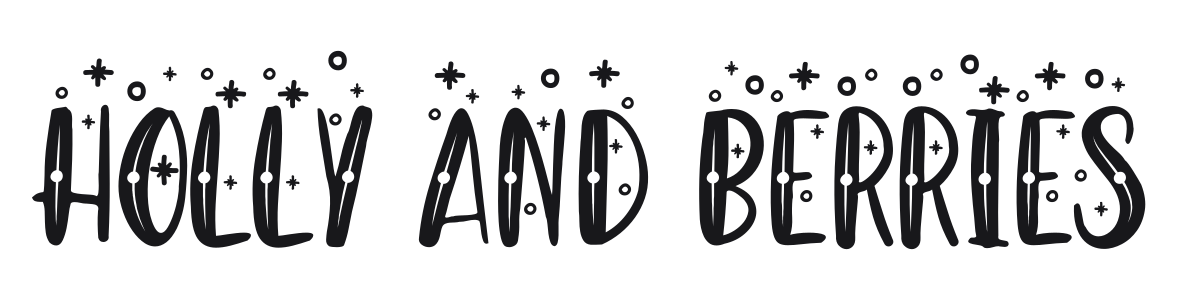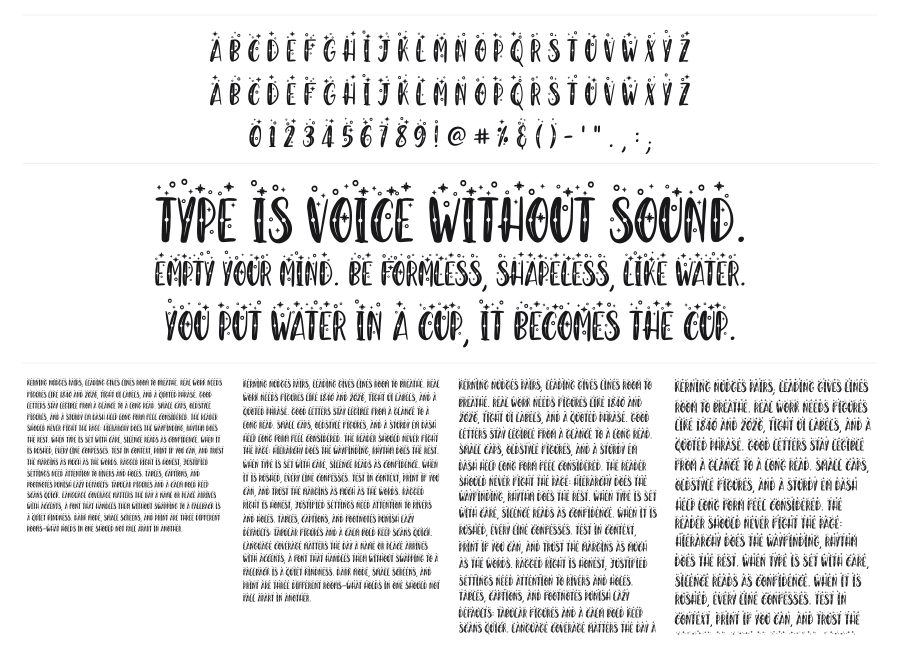
Holly And Berries
Holly And Berries is a bold, festive display font decorated with circular dot insets punched into each thick stroke, giving it a cheerful, handcrafted warmth. The rounded, slightly condensed characters are built for headlines and packaging where a celebratory seasonal tone is the point. A set of sparkle and star ornament glyphs ships alongside the letters to extend the holiday atmosphere.